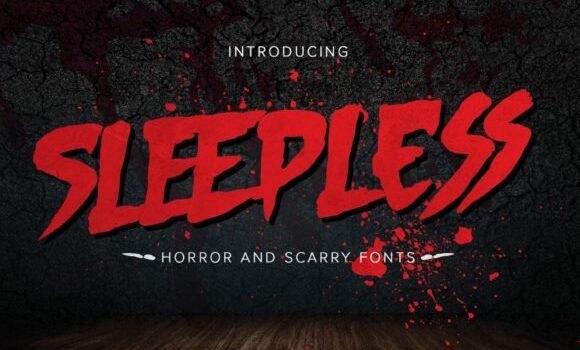
sleepless
Sleepless Font – Free Download Introduction to Sleepless Font Sleepless is a horror-styled display font that has a brushed, street art vibe. 📸 Preview Gallery 6 images 📌 Product Name Sleepless Font 👤 Author Gassstype Studio 📂 Category Explore ⬇️